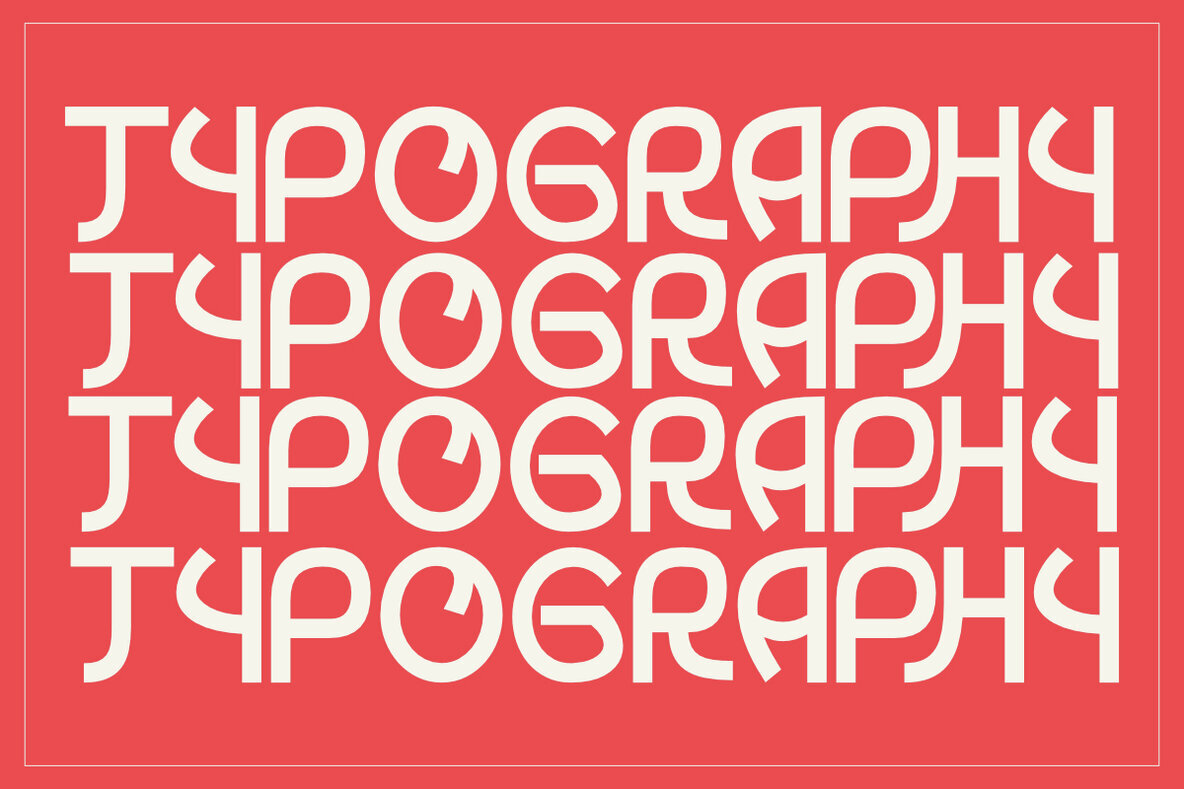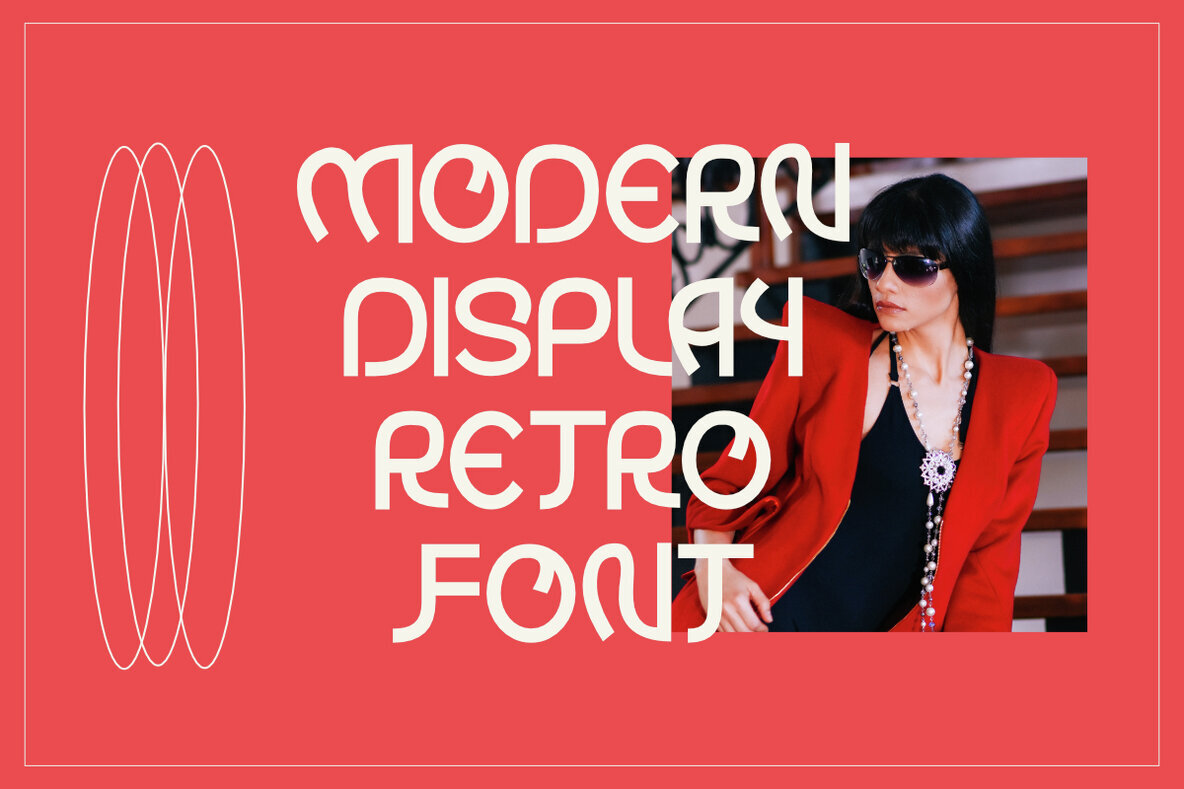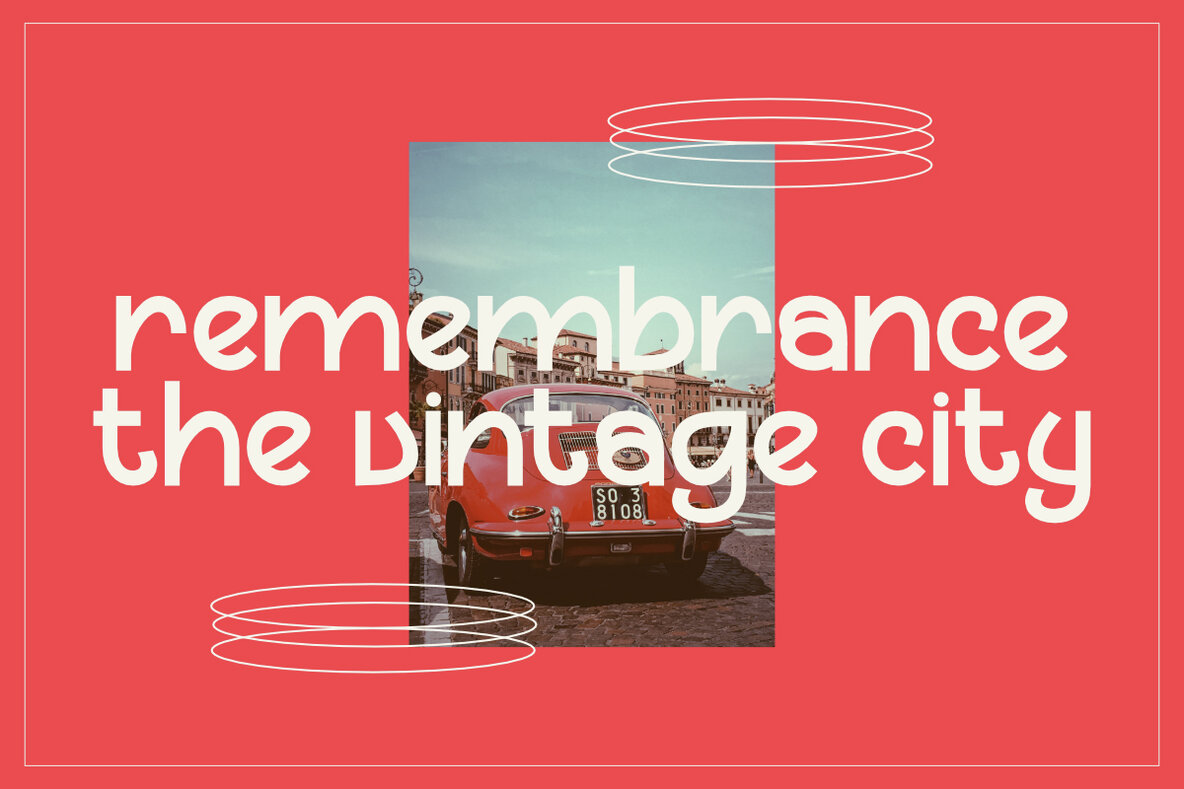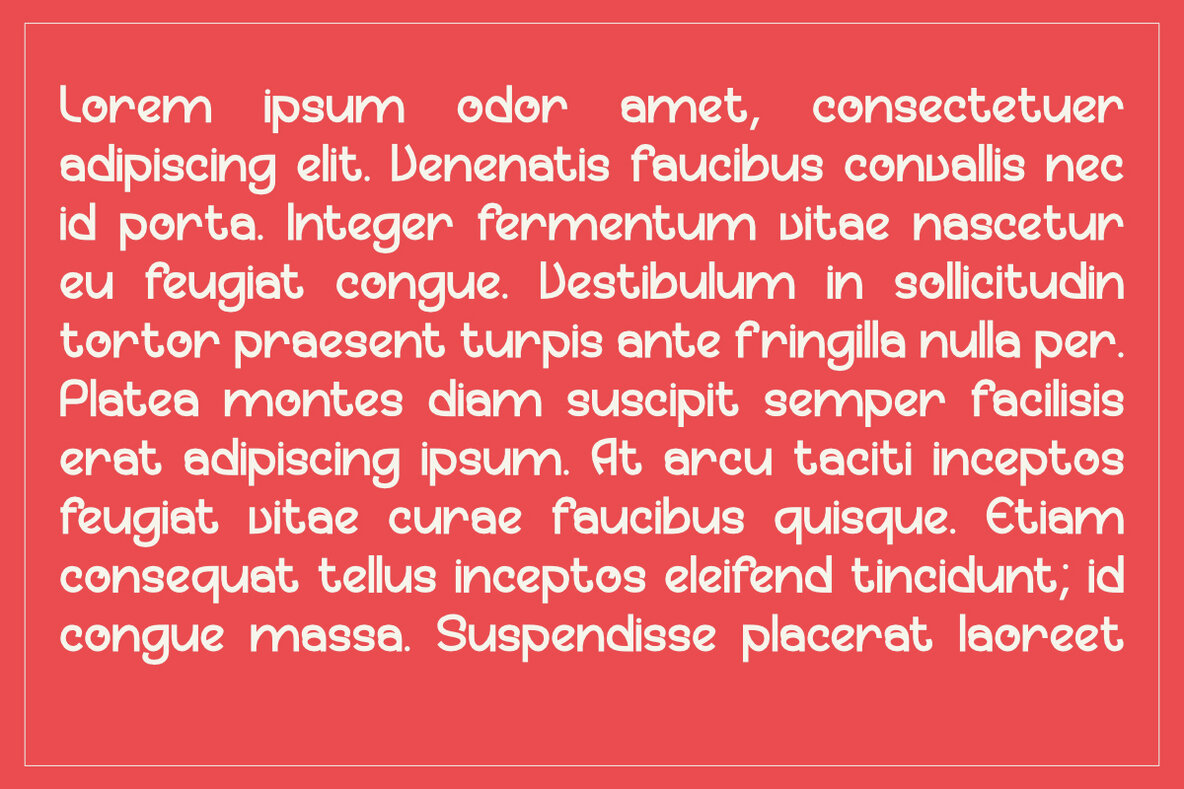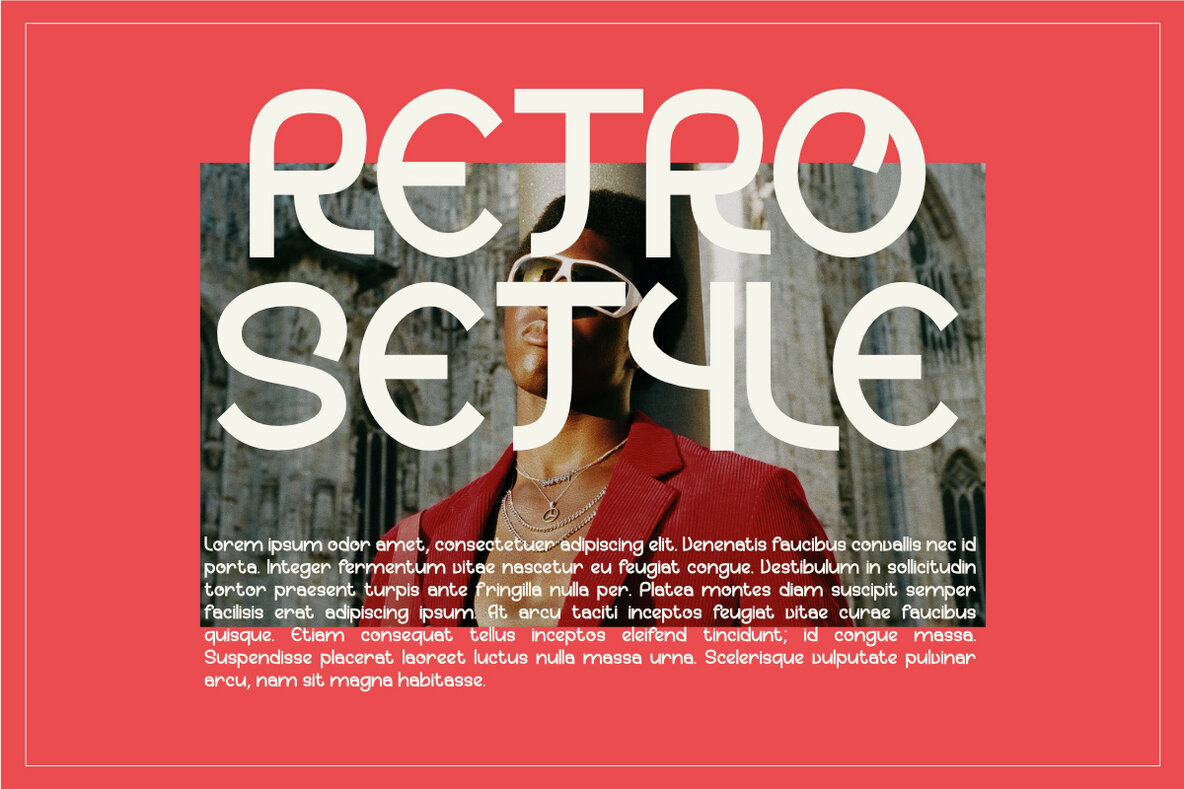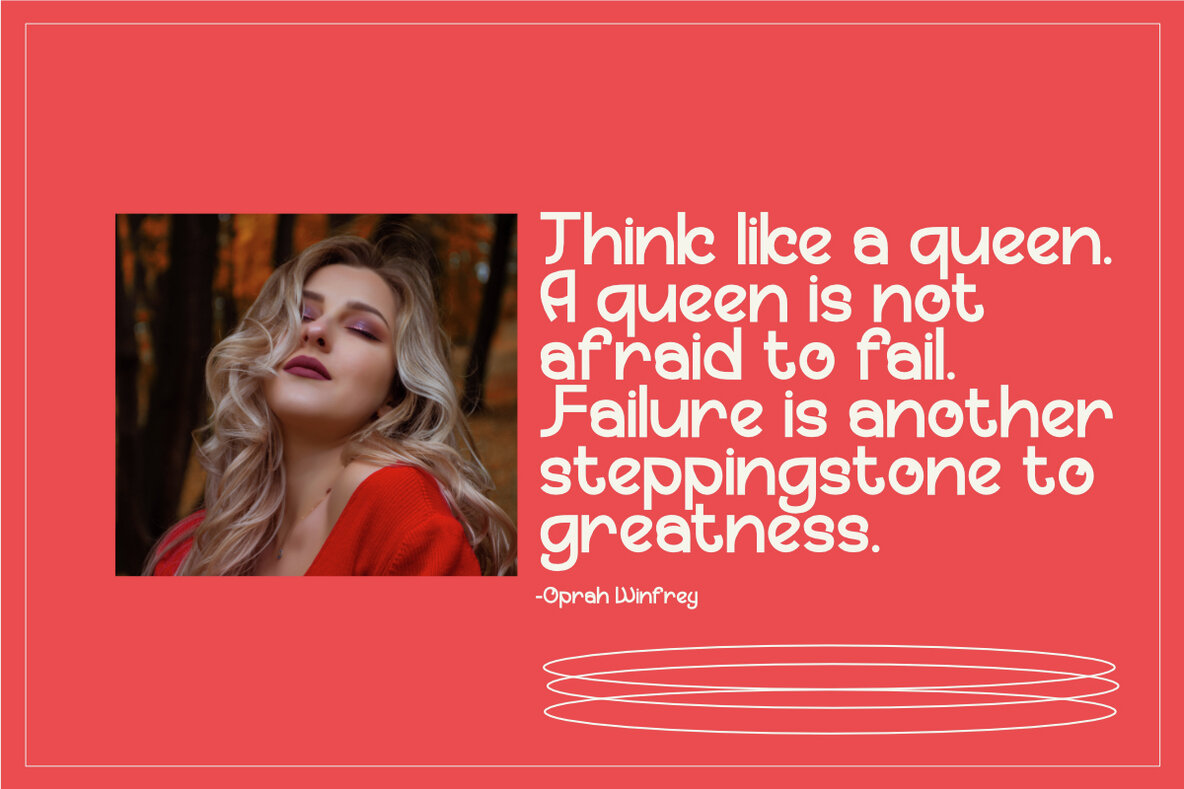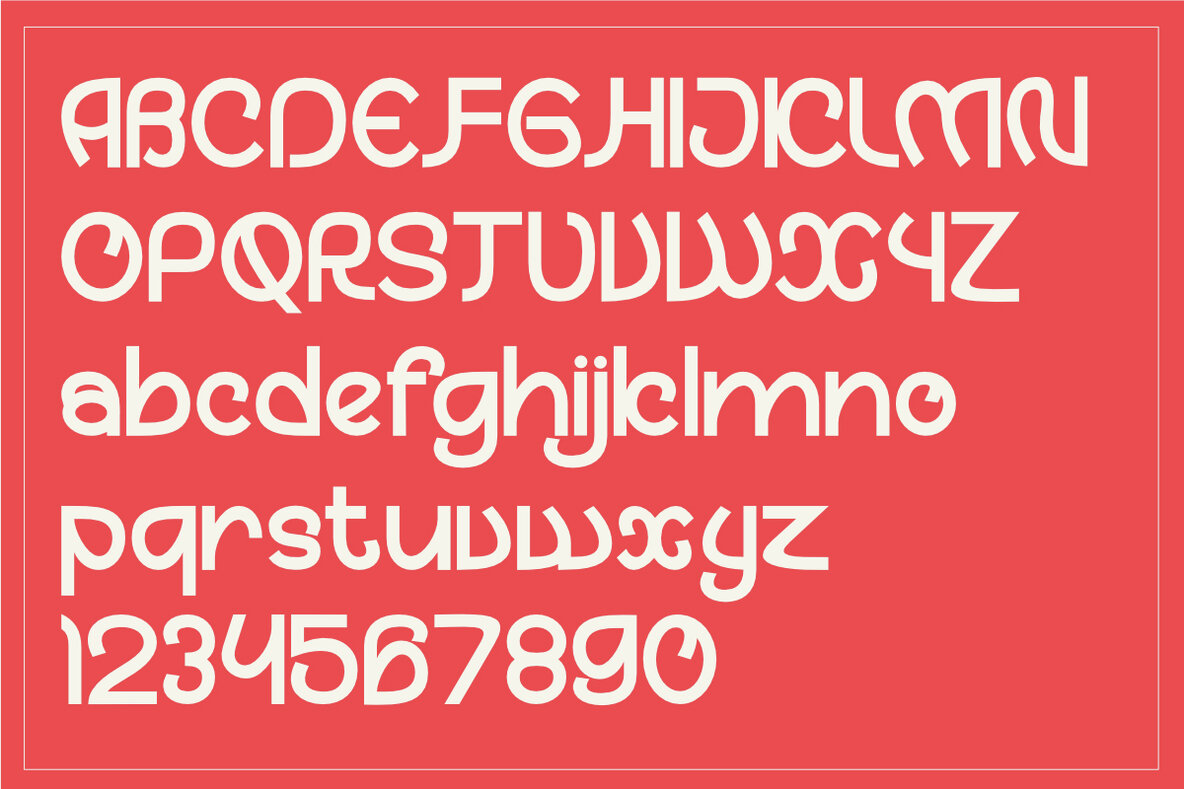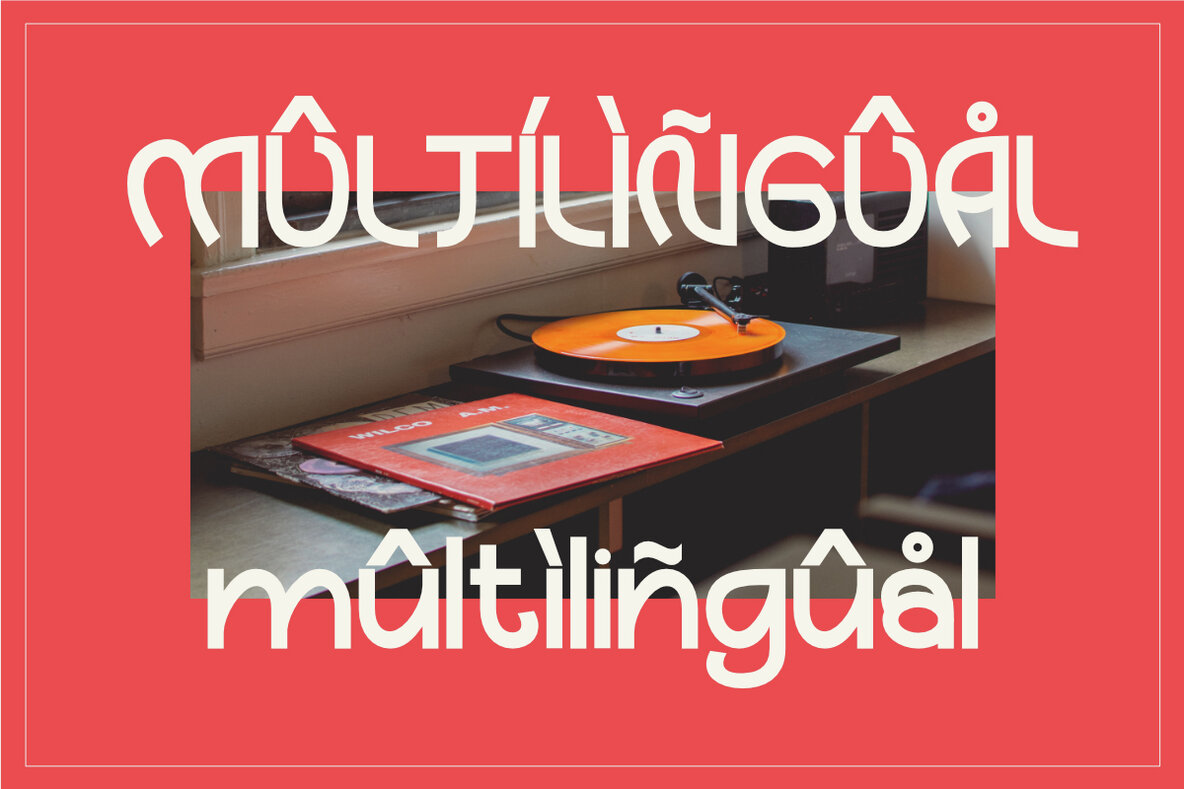
Zenotica Font
Zenotica Regular
Zenotica is a modern typeface that blends organic and geometric elements, creating a futuristic yet approachable design. With its smooth, rounded forms and slight retro touch, Zenotica strikes a balance between flexibility and solid structure. Each character is crafted to offer elegance and dynamism, with fluid curves and optimized spacing, making it perfect for a wide range of creative applications such as branding, posters, and futuristic digital designs. This font is ideal for those seeking an innovative and fresh appearance while maintaining warmth and softness in every letterform. Zenotica captures attention with its unique look, evoking a sense of advanced technology while ensuring readability and ease of use. Features: Multiple Languages Supported
Lowercase and Uppercase
Numerals & Punctuation
Accented characters